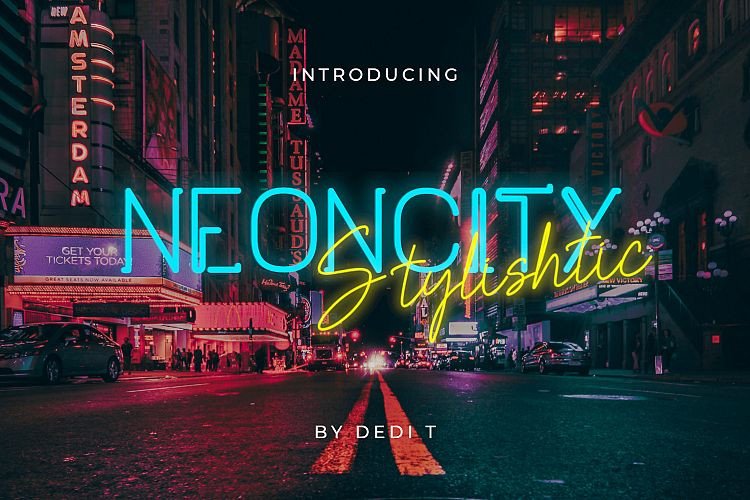
Neoncity Font Duo
This is a stunning pair of a beautiful script font and a display fonts, which are designed to complement each other with elegant and contemporary style! Introducing Neoncity Script and Display Font! It’s a bold and fresh display font with a vintage feel. Inspired by the flashing 80’s, it will add a distinct look to any design project. It is perfect for branding, posters, event invites, quote, blog posts, social media, and more!